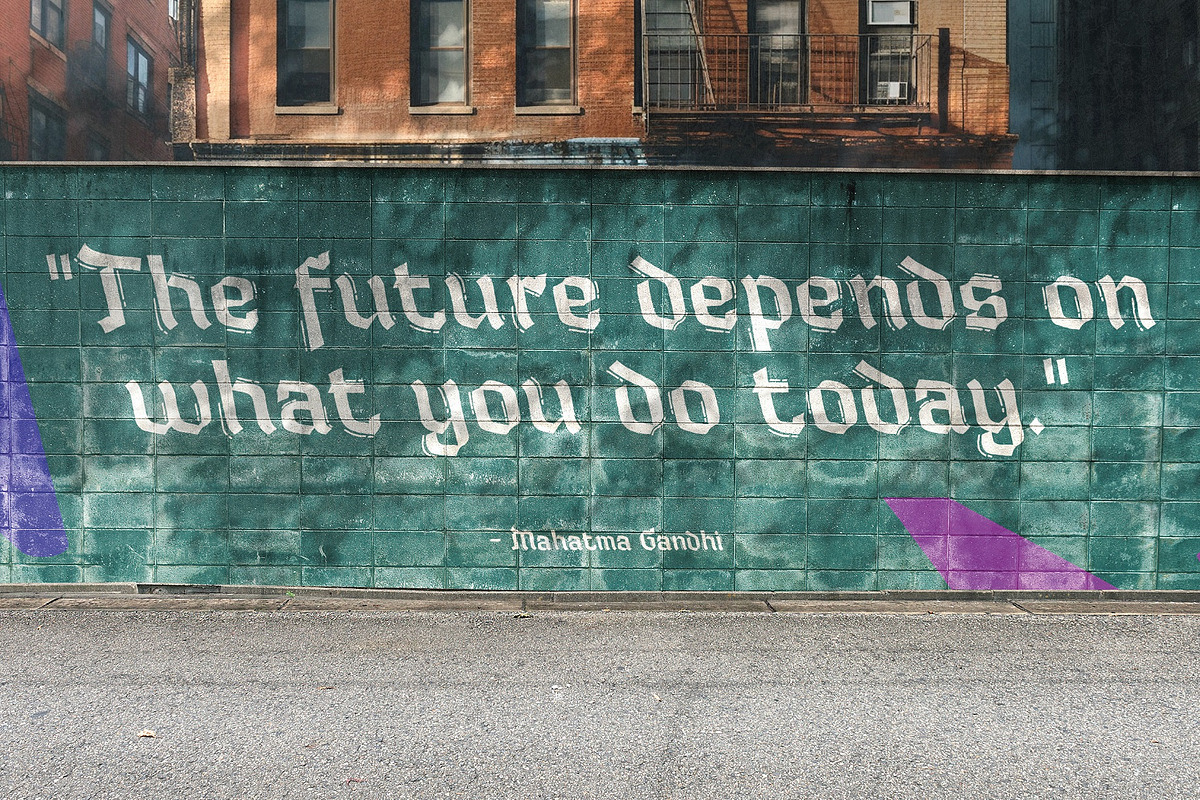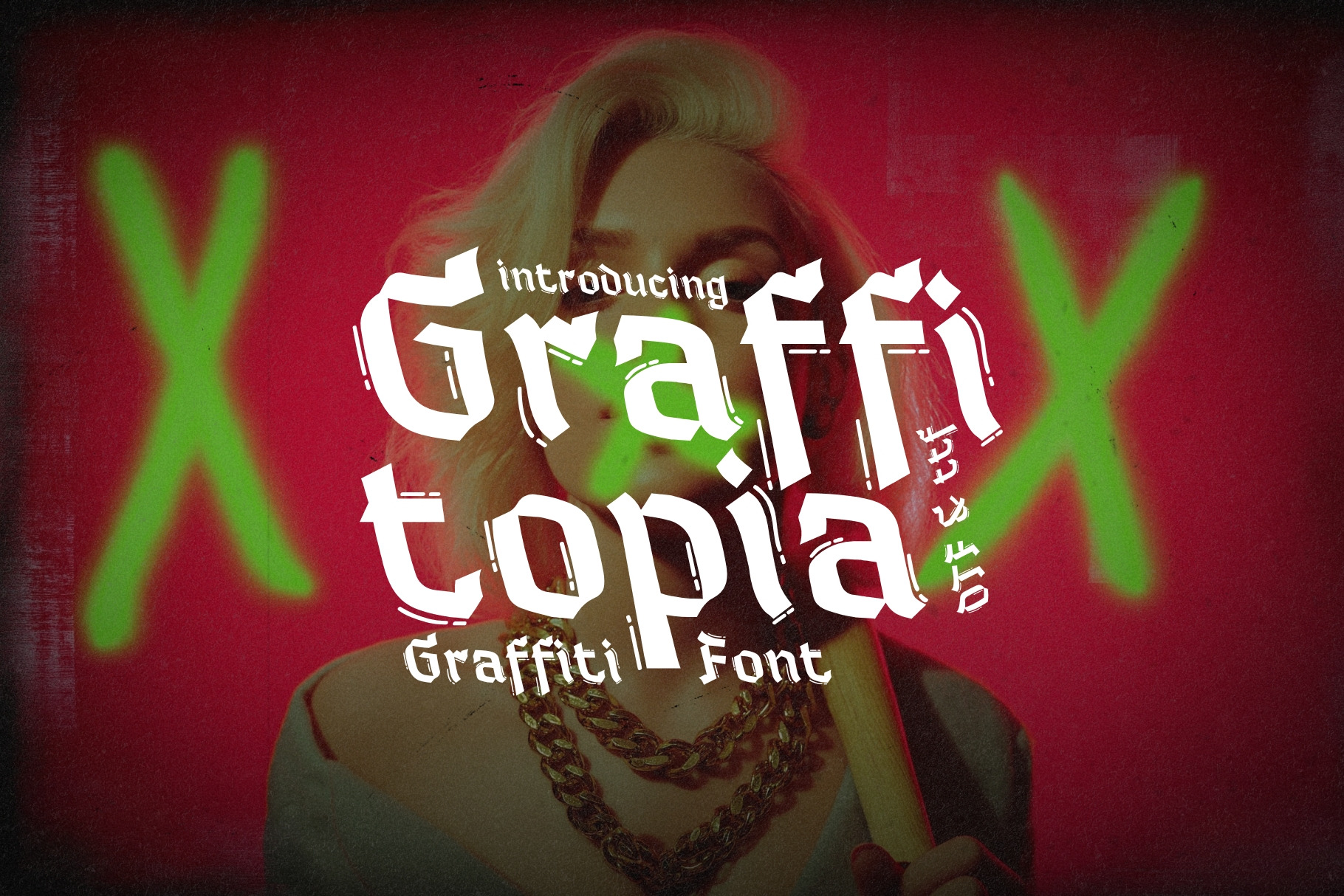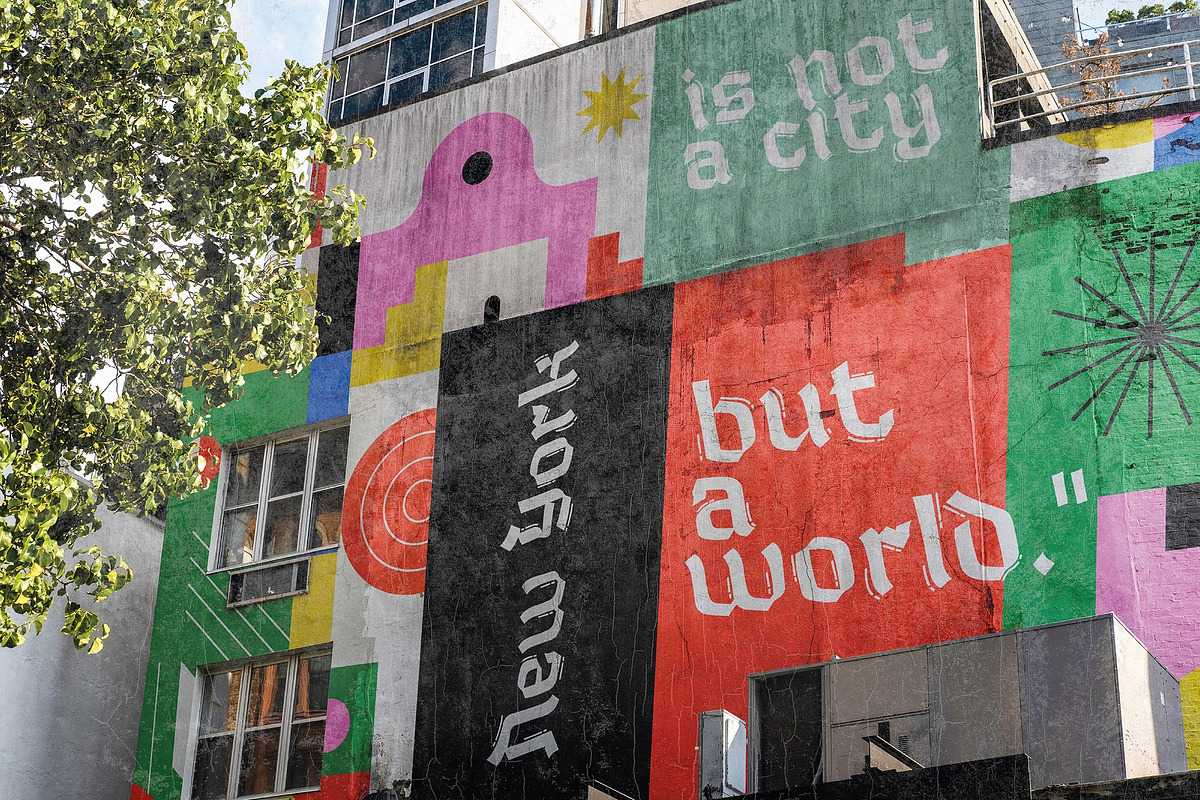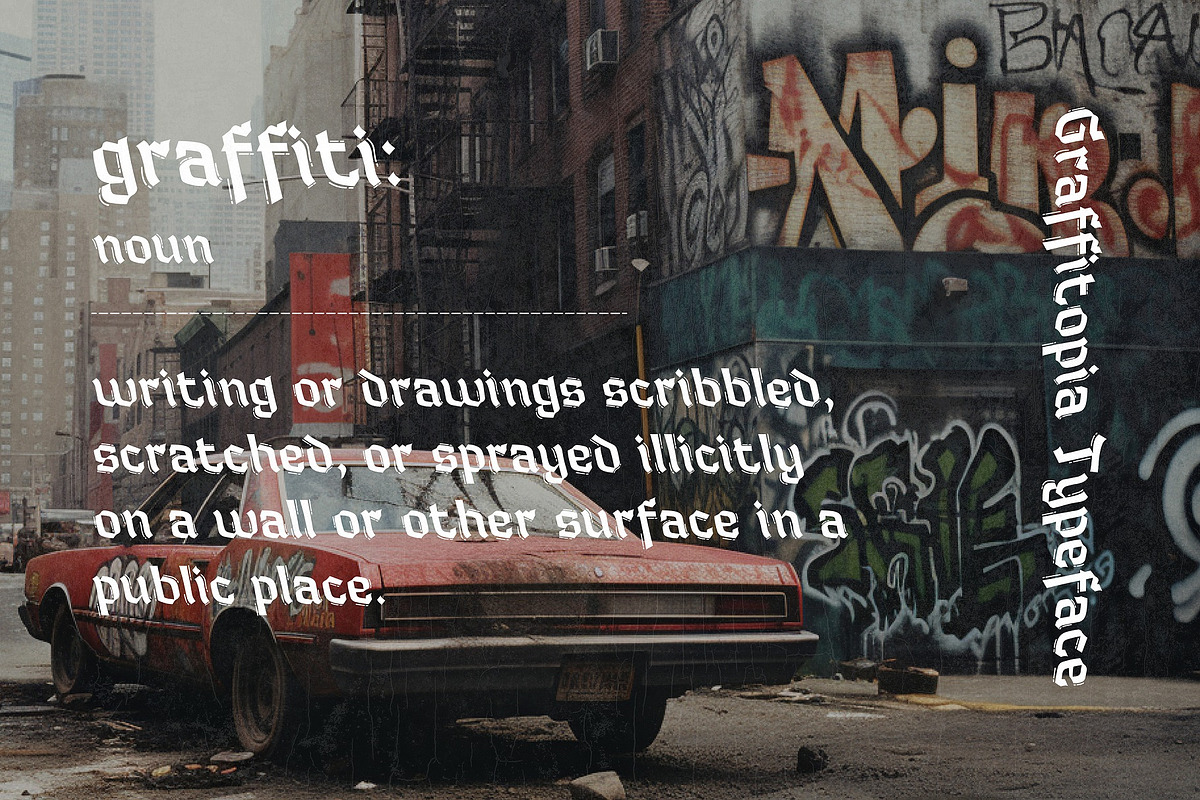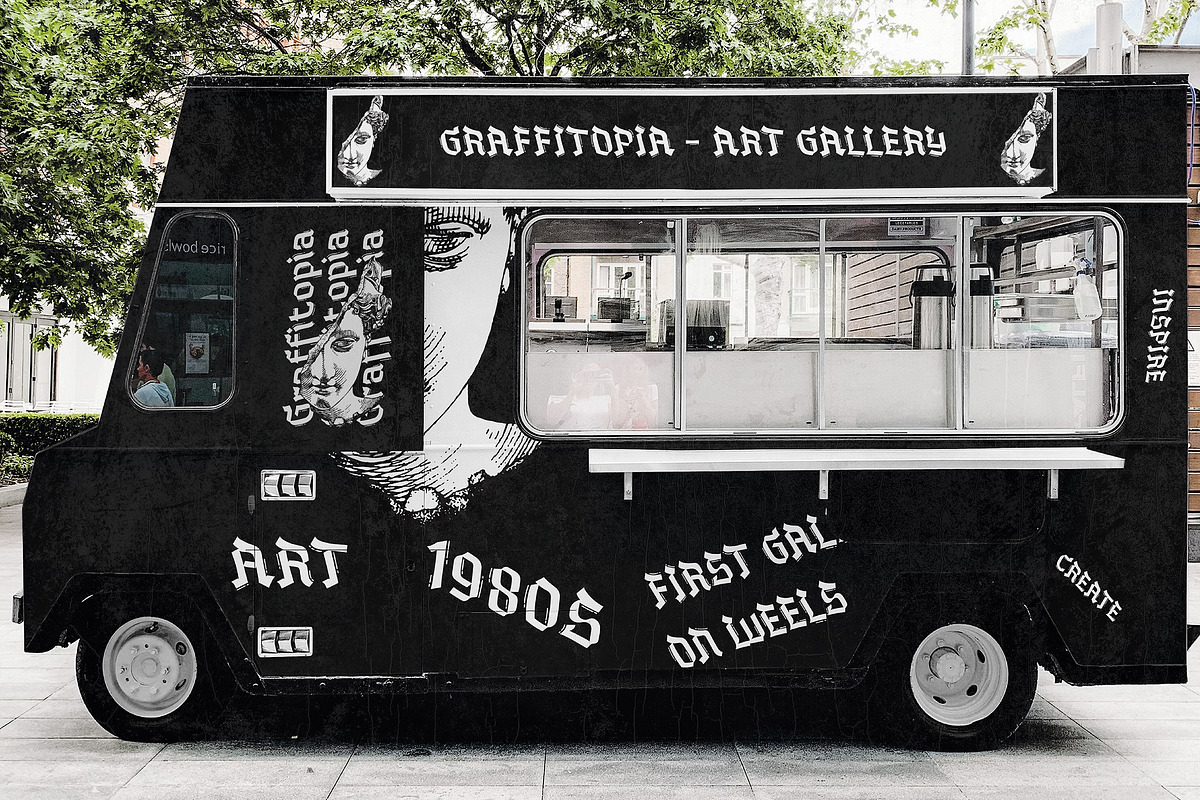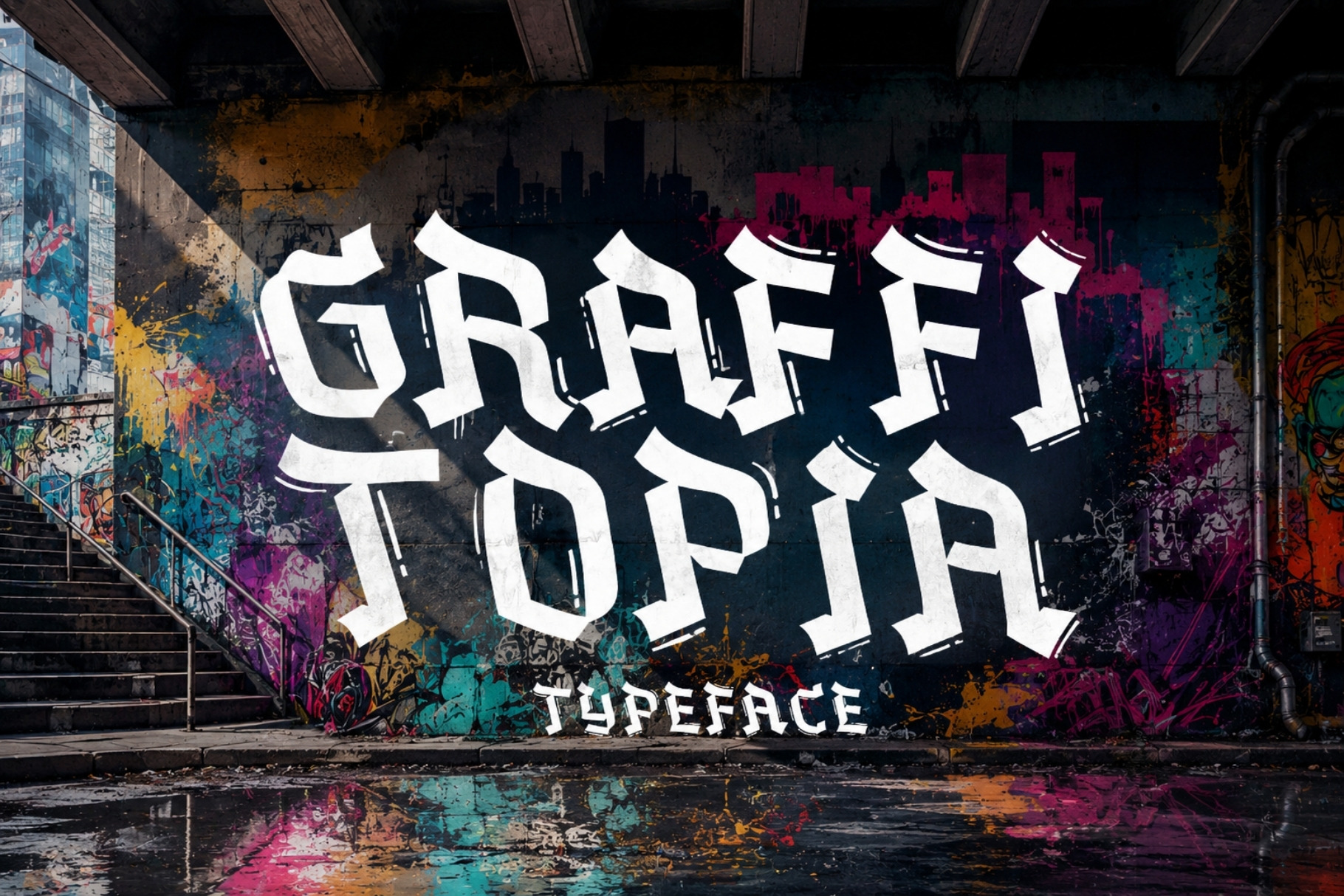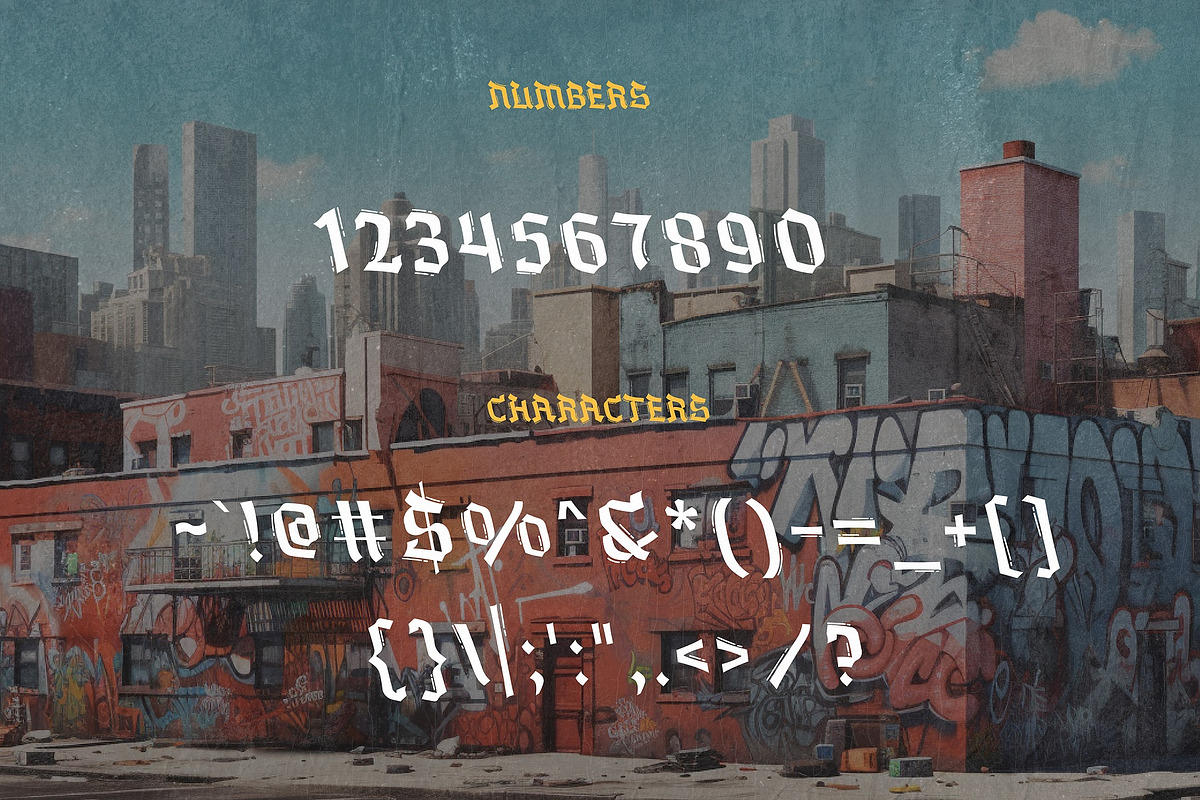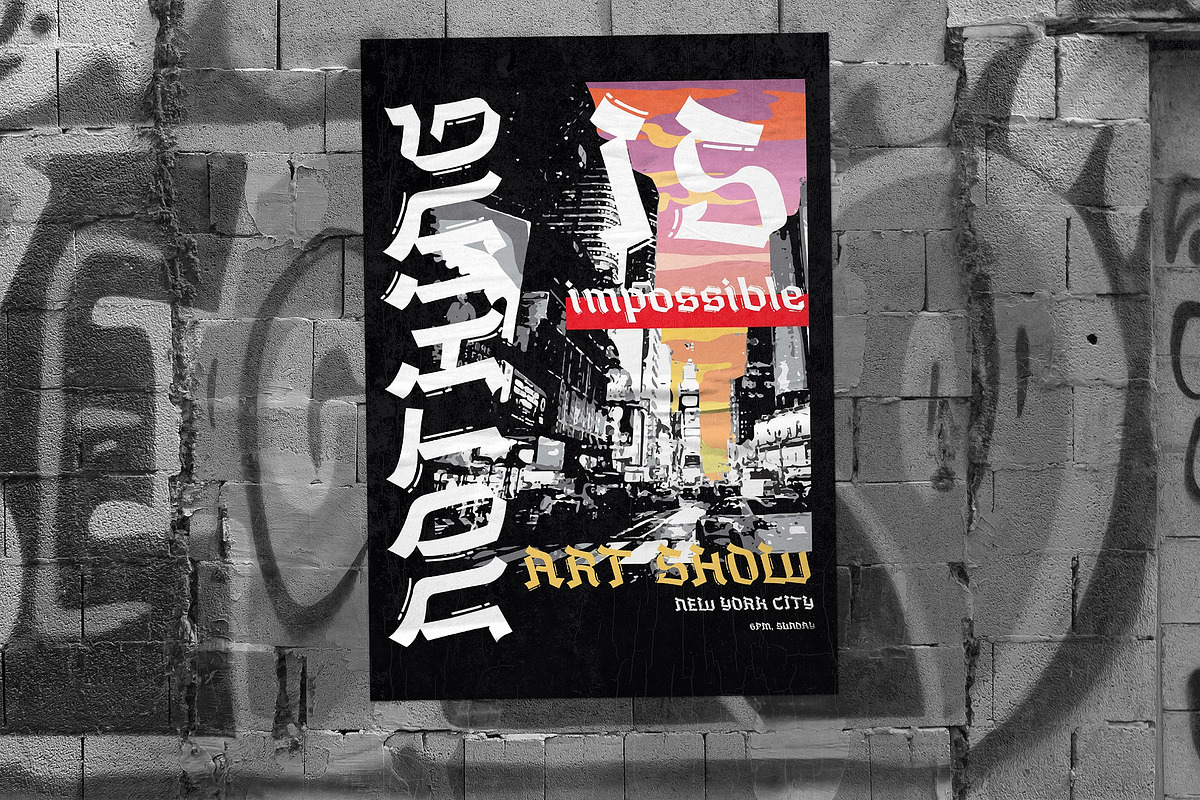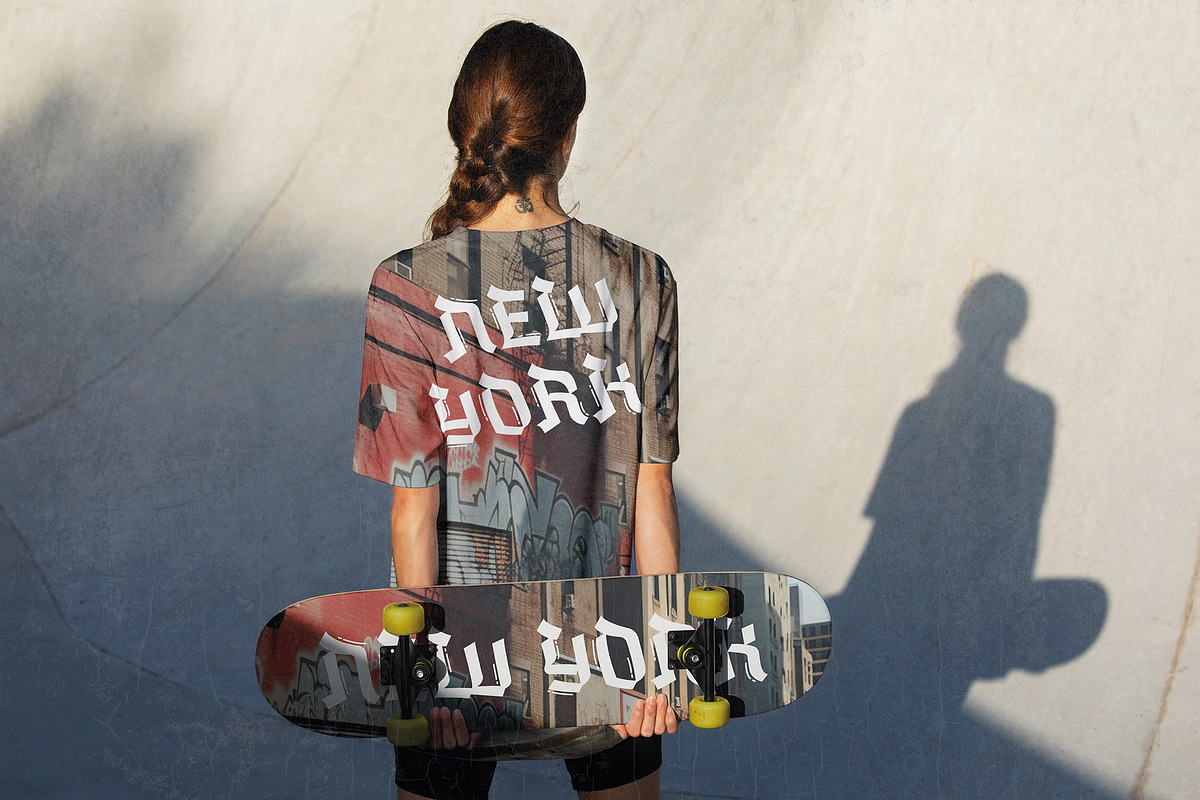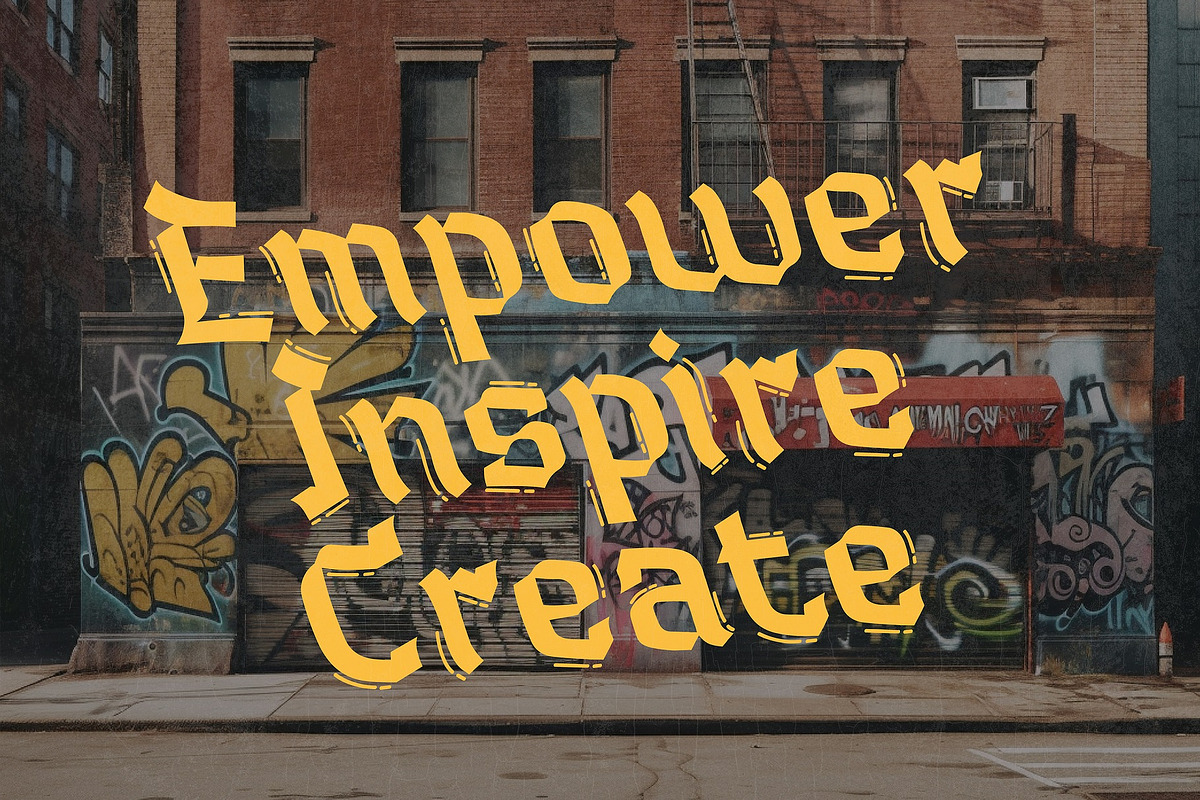
Graffitopia - Urban Graffiti Font
Introducing Graffitopia, an electrifying urban font that captures the raw energy and expressive spirit of graffiti tagging. Inspired by the vibrant street art culture, this typeface unleashes the dynamic essence of the concrete jungle onto any canvas. Each letter exudes the edgy strokes and rebellious flair synonymous with graffiti, bringing a slice of the urban landscape into digital design.
With its authentic and distinctive letterforms, Graffitopia transforms words into artful statements, infusing projects with an underground vibe that echoes the creativity and defiance of street artists. Whether for edgy logos, eye-catching posters, or contemporary designs, this font sets a rebellious tone that resonates with those who thrive on pushing artistic boundaries and carving their mark in the world.